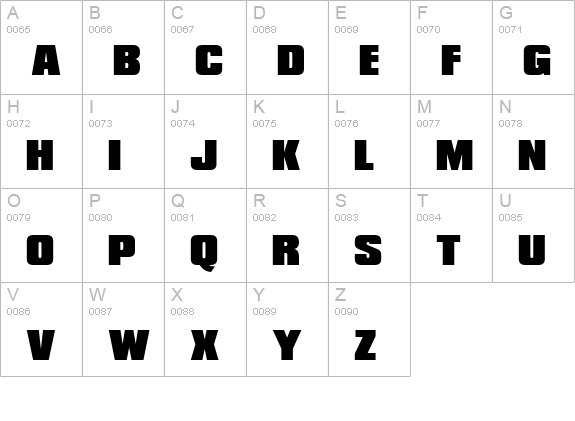
Compacta ICG Black Font Details
Compacta ICG Black is a maximum-weight, dramatic variant in the Compacta typeface family \xE2\x80\x94 well suited to maximum-impact headlines, posters, and packaging.
Compacta ICG Black font is a stylish and modern typeface that exudes sophistication and elegance. Its bold and striking design makes it perfect for creating eye-catching headlines, titles, and branding materials. The sleek and compact letterforms of Compacta ICG Black font give a contemporary edge to any design project. This font is ideal for a wide range of applications, from posters and advertisements to packaging and signage. Its versatility and readability make it a popular choice among designers looking to make a statement with their typography. Whether you're working on a print or digital project, Compacta ICG Black font is sure to make an impact. Best of all, Compacta ICG Black font is available for free download at FontsMarket.com. This means you can easily access this high-quality font and use it in your projects without any cost. Don't miss out on the opportunity to add this versatile and stylish font to your collection today!